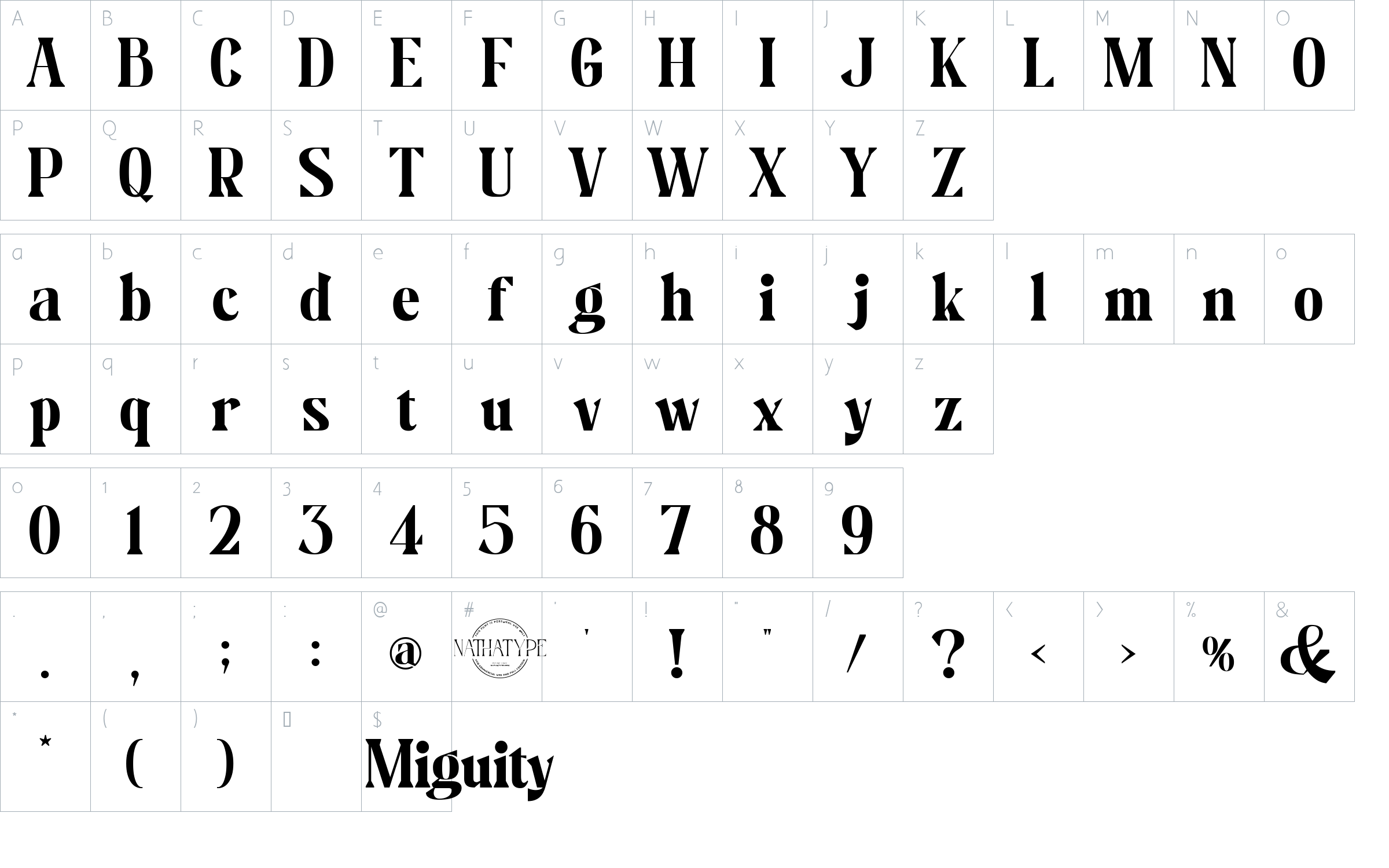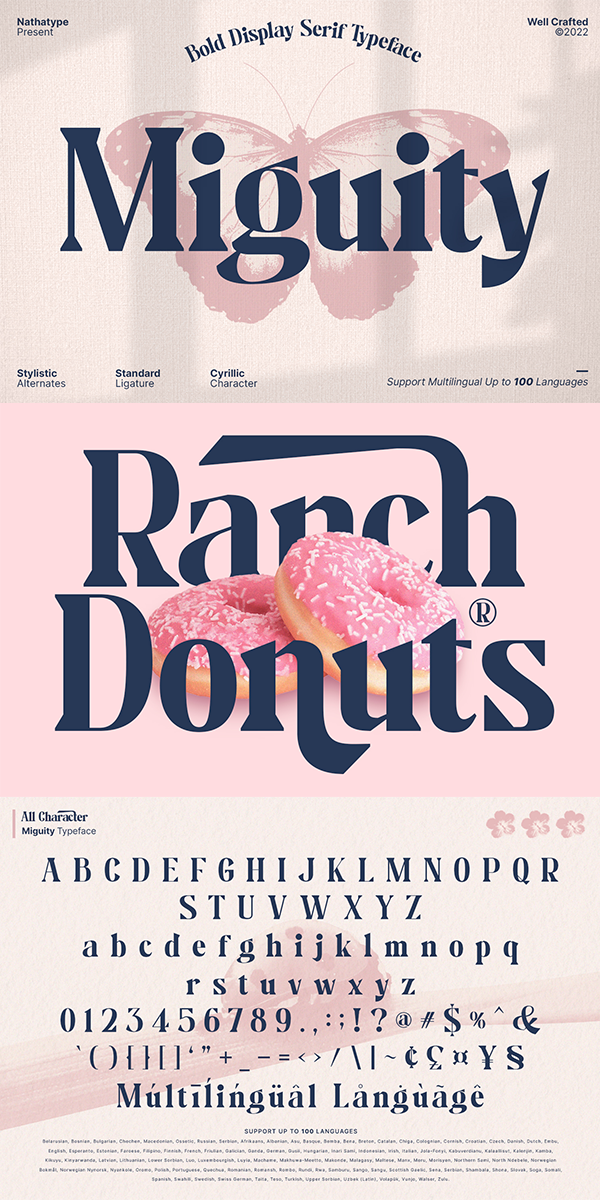
Miguity Font
About Miguity
Miguity is a display serif font in thick volumes designed to leave professional, formal, lovely impressions. This font’s character is the hook on the final corners of each letter. Plus, some of the letters show swinging wipes on their edges. It surely eases the eyes to explore the text to add its readability.
You can use Miguity on various designs, for example the posters, banners, logos, magazine covers, quotes, name cards, headings, printed products, merchandises: social media, and so on. Find out how to use this font by watching the font preview.